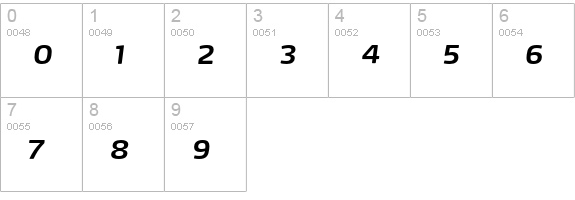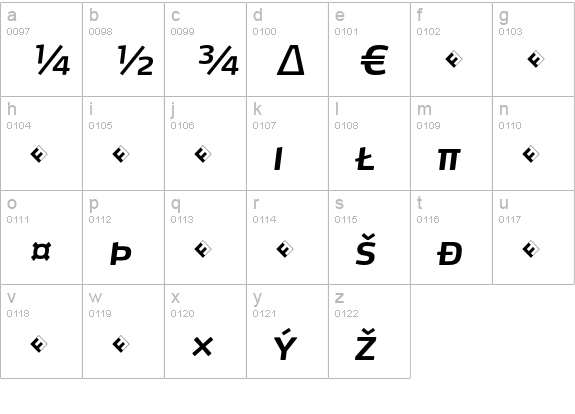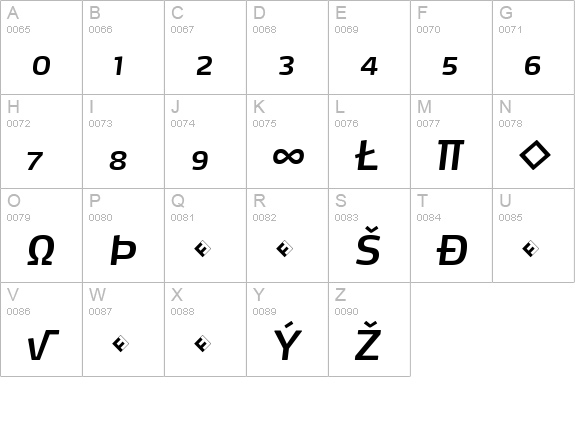
Max-SemiBoldItalicSCExpert font is a modern and sleek typeface that exudes elegance and sophistication. Its semi-bold weight combined with the italic styling creates a bold and dynamic look that is perfect for making a statement in any design project. The expert version of this font is specially designed for use in small caps, adding a touch of professionalism and refinement to your text. What makes Max-SemiBoldItalicSCExpert font even more appealing is that it is available for free download at FontsMarket.com. This means you can easily access and use this high-quality font in your projects without any cost. Whether you are designing a logo, creating a poster, or working on a website, Max-SemiBoldItalicSCExpert font is a versatile and stylish choice that will elevate your design to the next level.